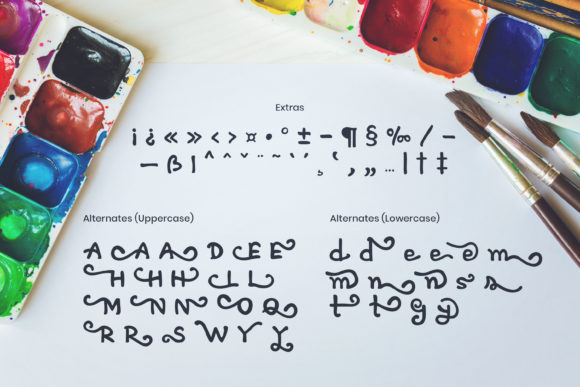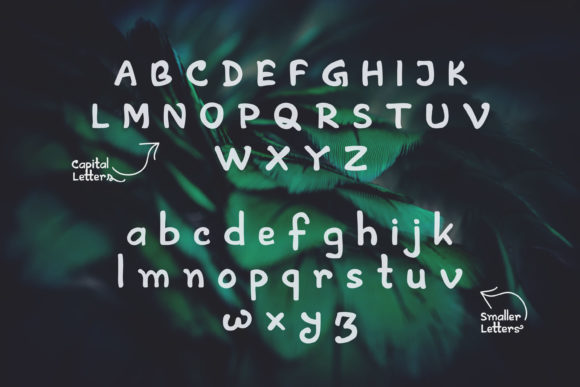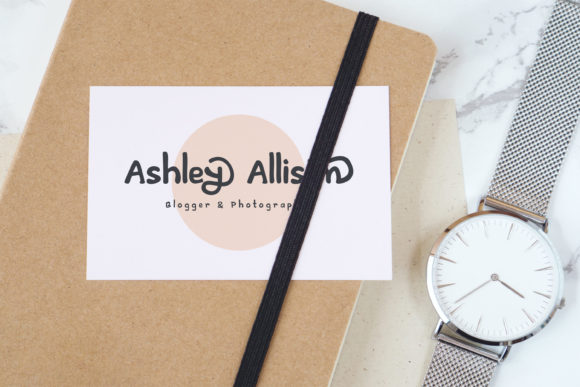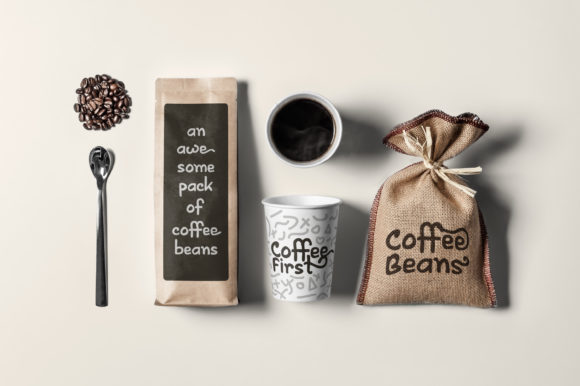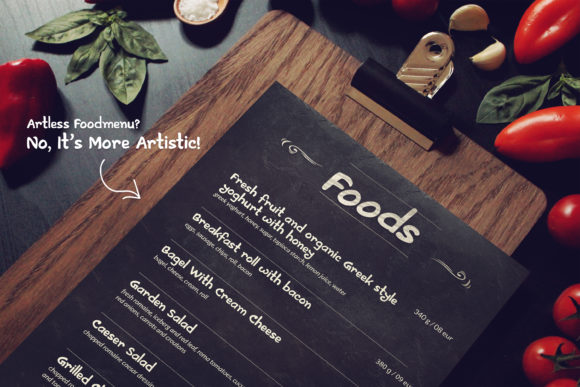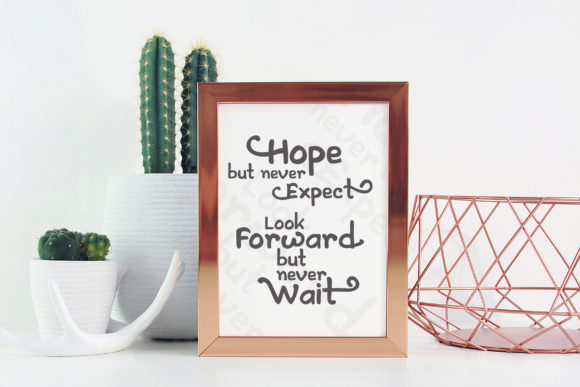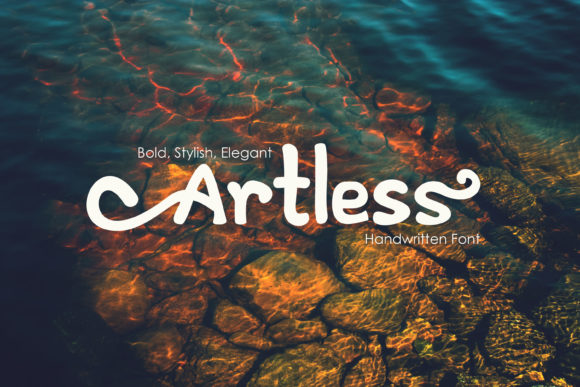
Discover the Elegance of Artless Font: Elevate Your Designs with Sophistication
In the world of typography, fonts play a crucial role in setting the tone and aesthetic of any design project. Whether you’re a seasoned designer or a crafty DIY enthusiast, finding the right font can make all the difference. If you’re looking to infuse your creations with a touch of elegance and sophistication, look no further than the Artless Font. In this article, we’ll explore what makes Artless a standout choice for designers and crafters alike, and how it can transform your designs into stunning works of art.
The Artless Font: A Beacon of Elegance
Artless Font is a meticulously crafted typeface designed to bring a sense of beauty and refinement to any project. Its elegant lines, balanced proportions, and exquisite details make it the perfect choice for those aiming to create a sophisticated atmosphere. Whether you’re working on a branding project, a wedding invitation, a fashion blog, or any other design endeavor, Artless Font is sure to leave a lasting impression.
One of the key advantages of Artless Font is its incredible versatility. This font isn’t just limited to a specific style or genre; it can seamlessly adapt to a wide range of design contexts. From formal and luxurious to soft and feminine, Artless can convey the desired mood with ease. Its flexibility makes it an invaluable asset for designers who work on diverse projects and need a reliable, high-quality font that can meet various stylistic demands.
Why Choose Artless Font?
So, what sets Artless Font apart from other typefaces? Here are a few compelling reasons why designers and crafters are gravitating towards Artless:
- Elegant Aesthetic: Artless boasts a clean and sophisticated design that adds a touch of class to any project.
- High Readability: Despite its elegant appearance, Artless maintains high readability, making it suitable for both headings and body text.
- Unique Character: Each letter in Artless has been carefully designed to ensure that your text stands out with a unique character.
- Easy to Pair: Artless can be easily paired with other fonts to create stunning contrast and visual interest.
How to Use Artless Font in Your Designs
Incorporating Artless Font into your design workflow is straightforward. Here are some tips to help you make the most of this beautiful typeface:
- Branding: Use Artless as a primary font for logos, business cards, and letterheads to establish a sophisticated brand identity.
- Wedding and Event Design: Add a touch of elegance to your wedding invitations, menus, and event programs with Artless.
- Digital Content: Enhance your blog posts, social media graphics, and website headers with Artless to create a polished look.
- Packaging: Elevate your product packaging with Artless to make your brand stand out on store shelves.
Artless Font is more than just a typeface; it’s a design statement. With its elegant aesthetic, versatility, and unique character, Artless has the power to transform any design project into a standout creation. Whether you’re a professional designer or a DIY enthusiast, Artless provides the perfect tool to convey sophistication and beauty. So, why settle for ordinary when you can create something extraordinary with Artless Font? Discover the elegance of Artless today and take your designs to new heights of sophistication and style.